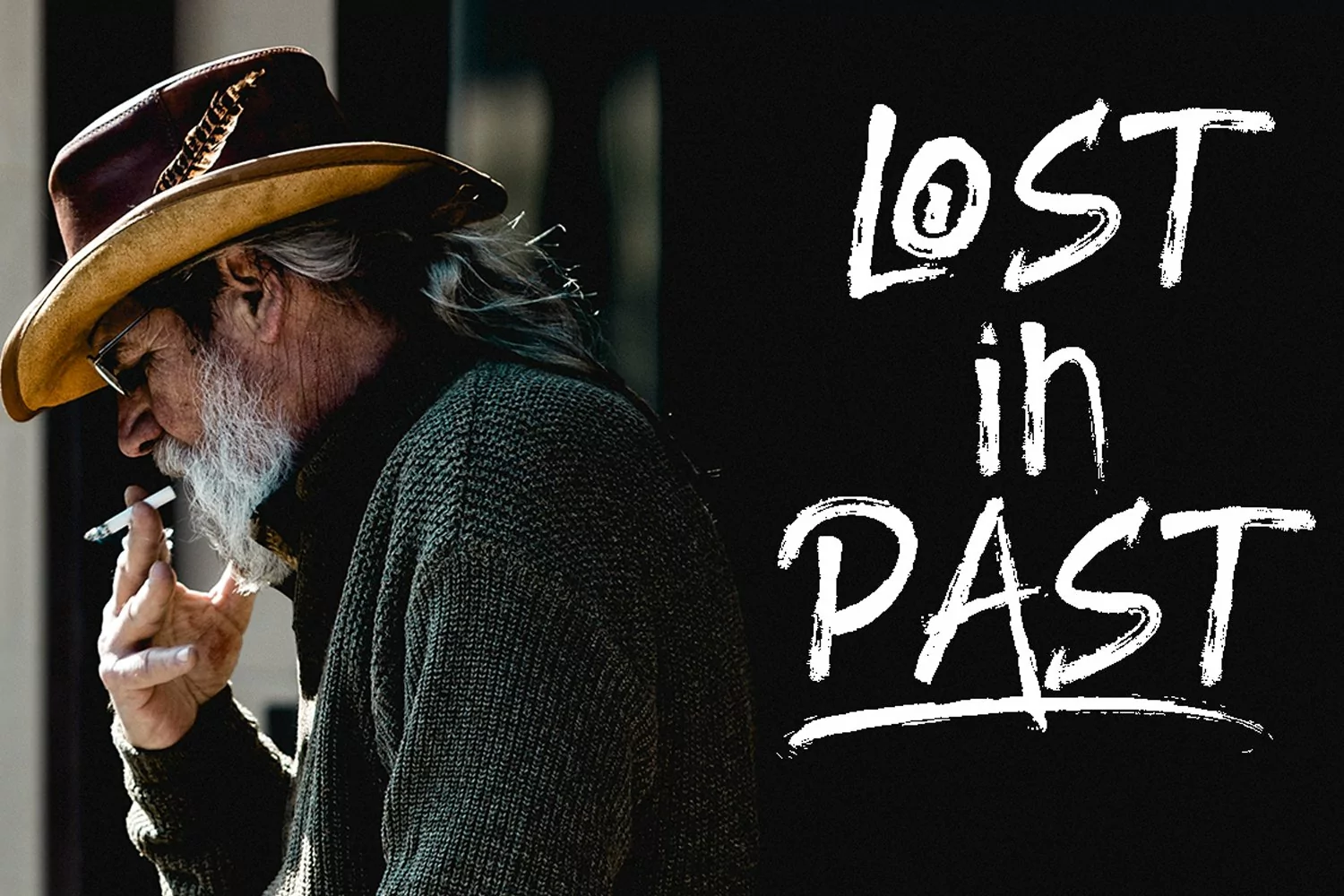
ROODY LAST
ROODY LAST Font is street-wise brush font bursting with energy. With extra attention to quick strokes and sharp details,
ROODY LAST is ideal for logos, apparel, T-shirt, Hoodie, quotes, product packaging, or anything which needs a typographic brush effect.
- more than 250 glyphs (include Uppercase, Lowercase, ligature, international characters, Numerals & Punctuations)